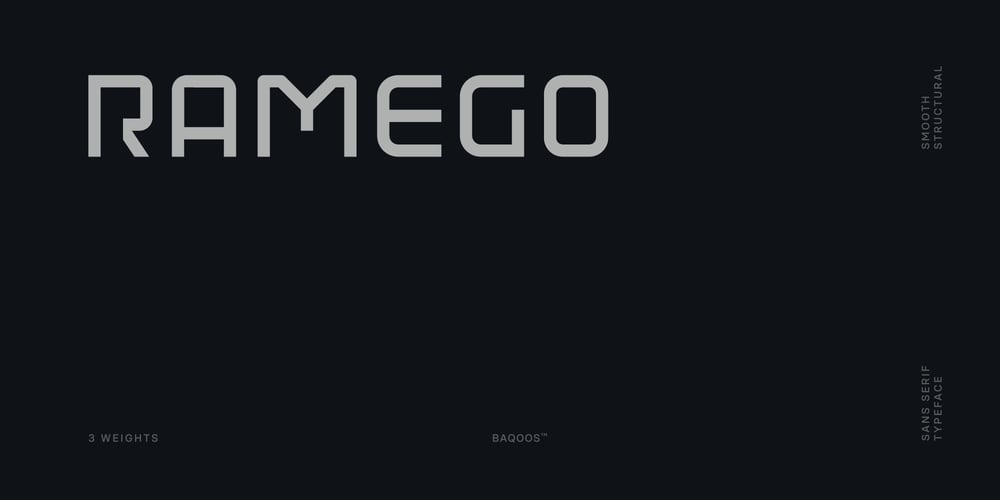
Ramego Font Family was designed by Andrew Seah and published by Baqoos. Ramego contains 4 styles and family package options. Ramego is a smooth structural linear sans apt for headline, editorial, branding, packaging, printed materials and typographic applications. 240+ glyphs with ligatures and fractions available in opentype .otf and .woff format